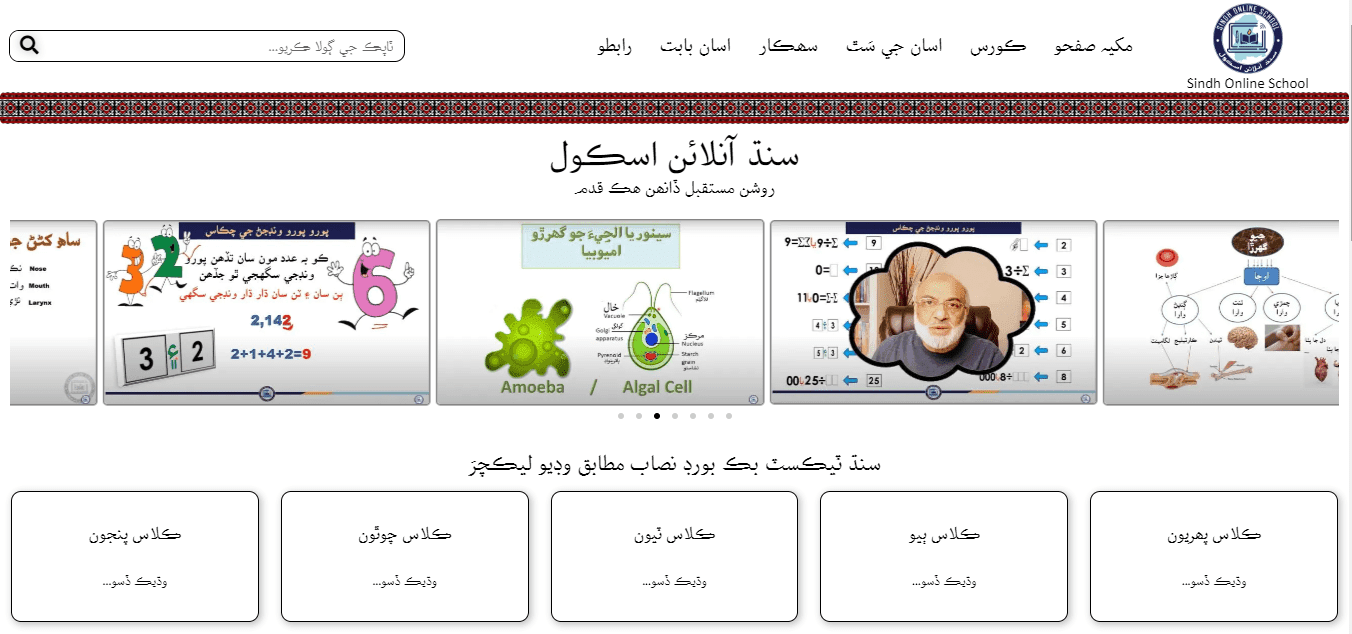
Latest Sindhi font Sarem Sindh Online School
Sarem Sindh Online School for your writings particularly for paragraphs. This font consists of a font family of four font styles Regular, Italic, Bold and Bold Italic. This font pack confirms the latest Unicode standards also. Sarem Sindh Online School is not free.
The font Sarem Sindh Online School is made for the first Online Sindhi School The Sindh Online School. The Sindh Online School is the only Sindhi e-learning platform, which provides free video lessons, based on the curriculum recommended by the Sindh Textbook Board Jamshoro.